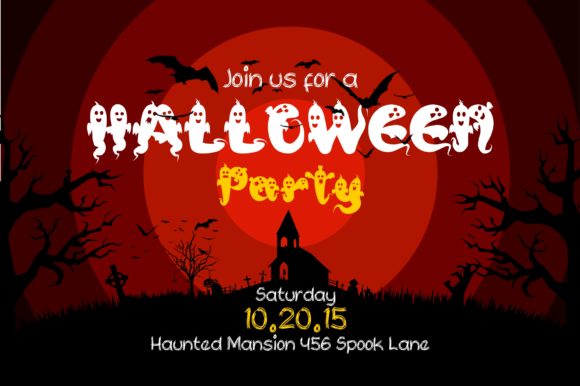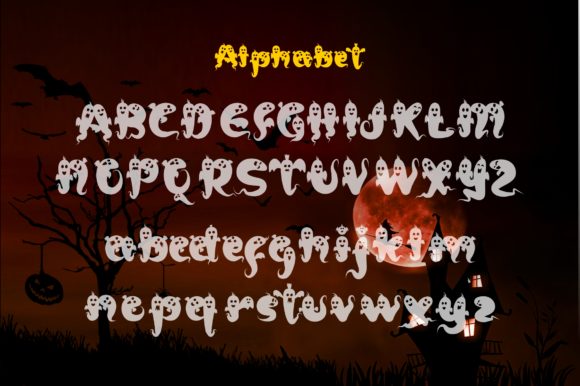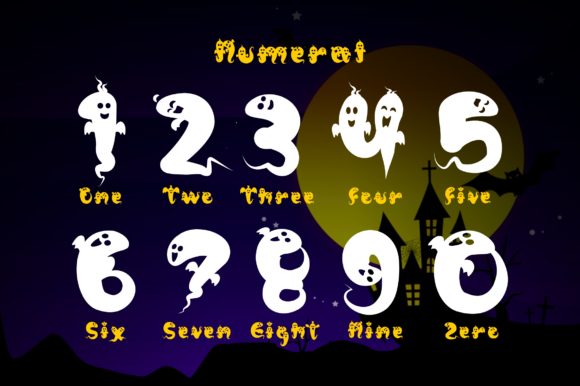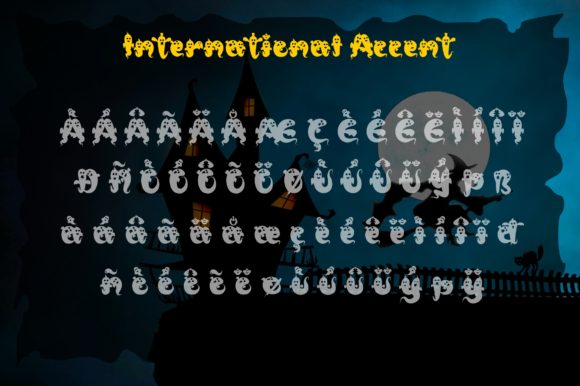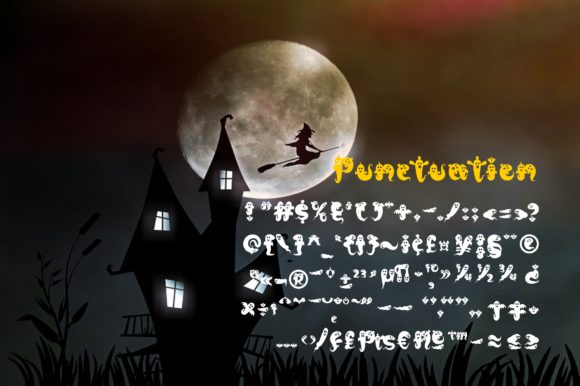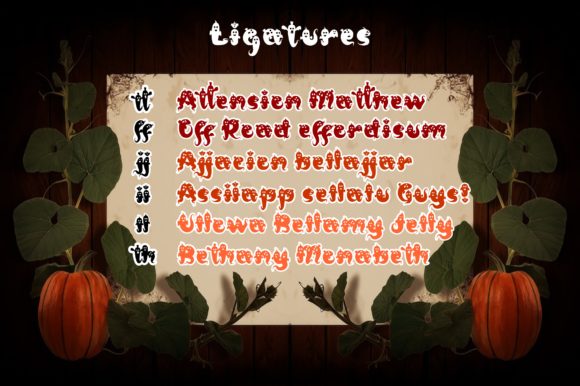
Unleash Your Creativity with Funboo Font: The Ultimate Dingbats Font for Halloween Enthusiasts
Are you a designer, crafter, or Halloween enthusiast looking for a unique and quirky font to make your creative projects stand out? Look no further than Funboo Font, an incredibly interesting dingbats font that’s perfect for adding a touch of whimsy to your Halloween-themed designs. In this article, we’ll dive into the world of Funboo Font, exploring its features, benefits, and uses, as well as provide tips and inspiration for incorporating it into your creative projects.
What is Funboo Font?
Funboo Font is a one-of-a-kind dingbats font that’s designed to add a dash of fun and quirkiness to your designs. With its unique and playful characters, this font is sure to capture the attention of your audience and leave a lasting impression. Whether you’re creating Halloween-themed party invitations, decorations, or social media graphics, Funboo Font is the perfect choice for adding a touch of personality to your designs.
Features of Funboo Font
So, what makes Funboo Font so special? Here are just a few of its key features:
- Unique and quirky characters: Funboo Font features a range of unique and quirky characters that are sure to add a touch of personality to your designs.
- Halloween-themed: With its spooky and kooky characters, Funboo Font is perfect for Halloween-themed designs, from party invitations to decorations.
- Dingbats font: As a dingbats font, Funboo Font features a range of graphical characters, including symbols, icons, and illustrations.
Benefits of Using Funboo Font
So, why should you choose Funboo Font for your creative projects? Here are just a few of the benefits of using this amazing font:
- Adds personality to your designs: With its unique and quirky characters, Funboo Font is sure to add a touch of personality to your designs and make them stand out from the crowd.
- Perfect for Halloween-themed designs: Whether you’re creating party invitations, decorations, or social media graphics, Funboo Font is the perfect choice for adding a touch of Halloween spirit to your designs.
- Versatile: Funboo Font can be used for a range of creative projects, from digital designs to print projects.
- Easy to pair with other fonts: Funboo Font pairs perfectly with other fonts, making it easy to create unique and eye-catching designs.
Using Funboo Font in Your Creative Projects
So, how can you use Funboo Font in your creative projects? Here are just a few ideas to get you started:
- Halloween party invitations: Use Funboo Font to create spooky and kooky party invitations that will set the tone for your Halloween party.
- Decorations: Use Funboo Font to create Halloween-themed decorations, such as garlands, banners, and signs.
- Social media graphics: Use Funboo Font to create eye-catching social media graphics that will help your Halloween-themed posts stand out.
- Craft projects: Use Funboo Font to add a touch of personality to your craft projects, such as Halloween-themed cards, gift tags, and scrapbook pages.
Here are a few tips and inspiration to help you get the most out of Funboo Font:
- Experiment with different colors: Funboo Font looks great in a range of colors, from bright and bold to spooky and muted.
- Pair with other fonts: Funboo Font pairs perfectly with other fonts, so don’t be afraid to experiment with different font combinations.
- Use in combination with images: Funboo Font looks great in combination with images, such as Halloween-themed illustrations and photographs.
For inspiration, check out some of the amazing designs created with Funboo Font, from spooky and kooky Halloween party invitations to eye-catching social media graphics.
In conclusion, Funboo Font is an incredibly unique and interesting dingbats font that’s perfect for adding a touch of whimsy to your Halloween-themed designs. With its quirky characters, ease of use, and versatility, Funboo Font is a must-have for designers, crafters, and Halloween enthusiasts. So why wait? Download Funboo Font today and start creating your own spooky and kooky designs!